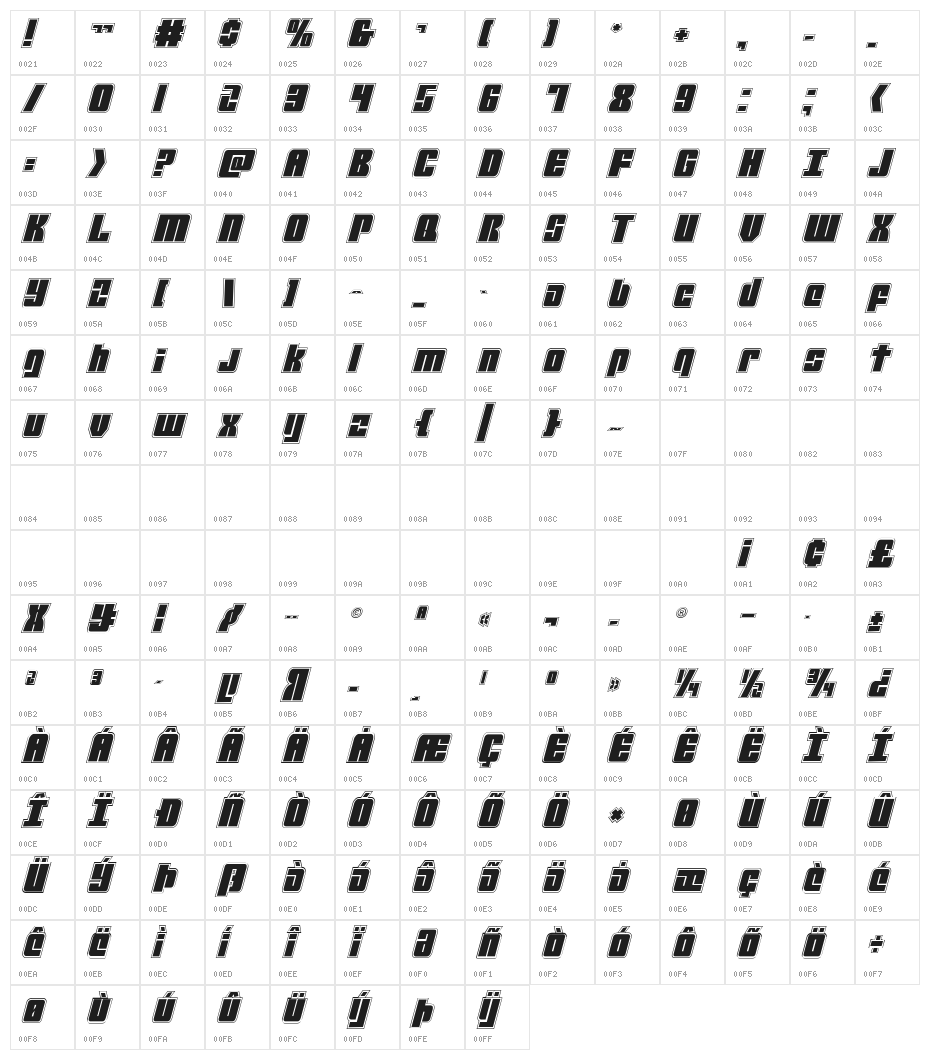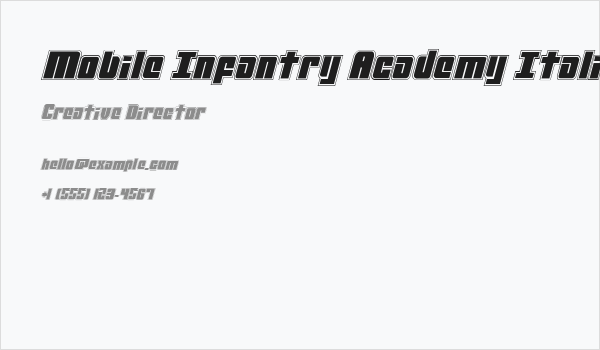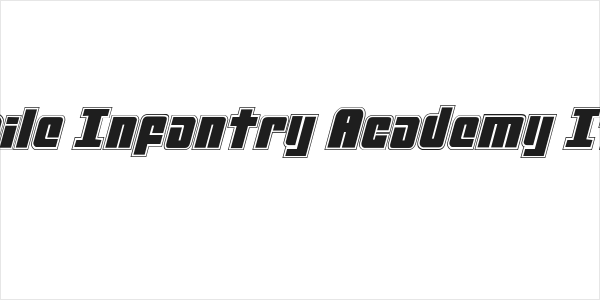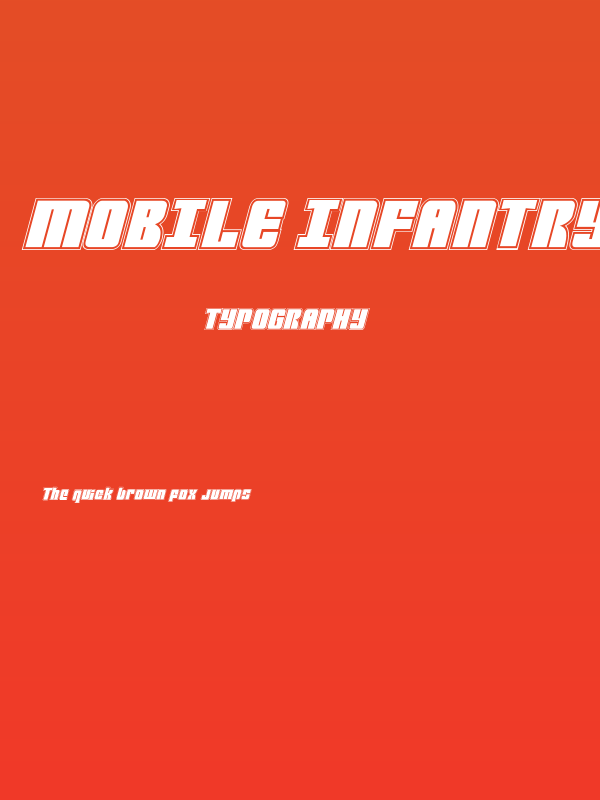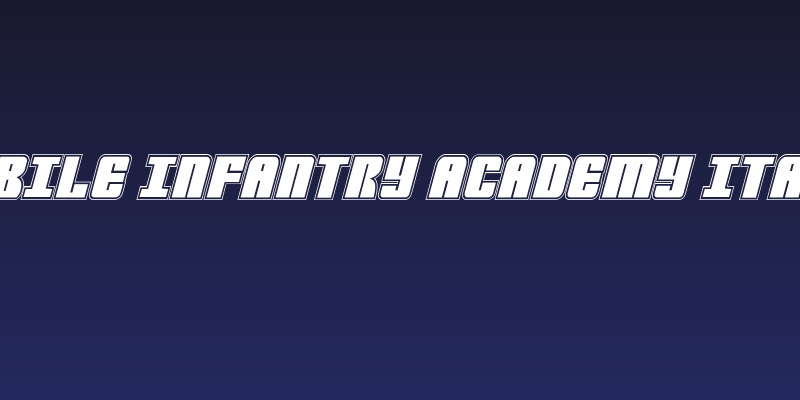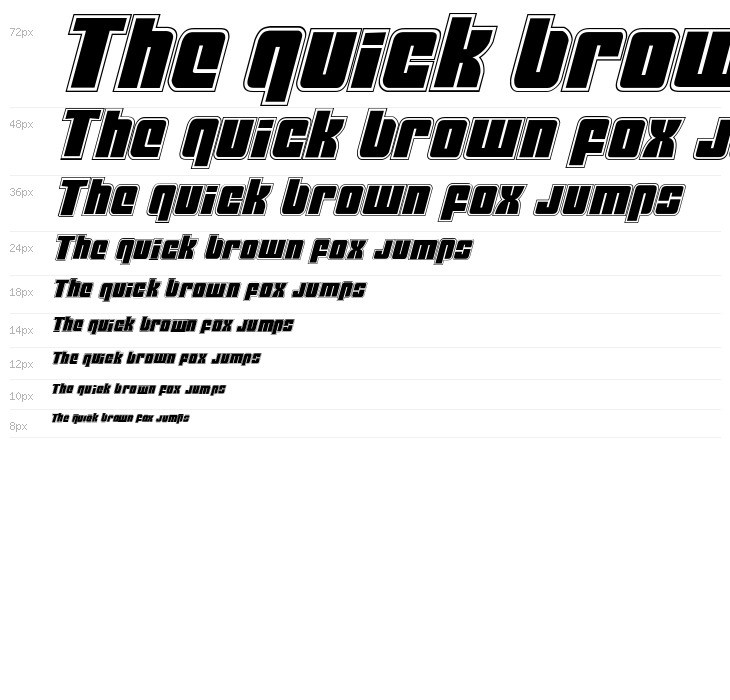
Mobile Infantry Academy Italic Font
Mobile Infantry Academy Italic Description
This font features a bold, italicized style with a futuristic and dynamic appearance. The characters are blocky and angular, with a strong presence that commands attention. Each letter is outlined, adding depth and a three-dimensional effect. The uppercase and lowercase letters maintain a consistent style, while the numbers and special characters complement the overall design. The font's boldness and slant give it a sense of motion and energy, making it ideal for projects that require a modern and impactful look.
| Proposed Projects | Ideal for sci-fi themed designs, video game titles, sports branding, and dynamic posters. |